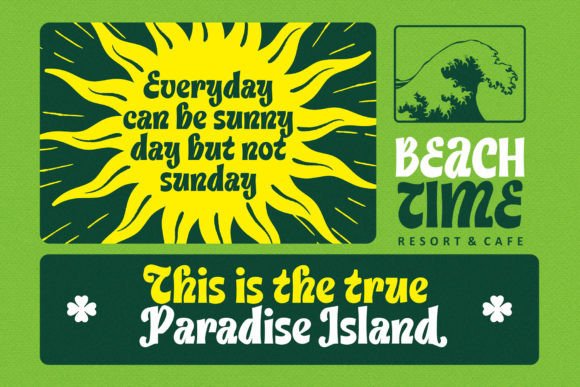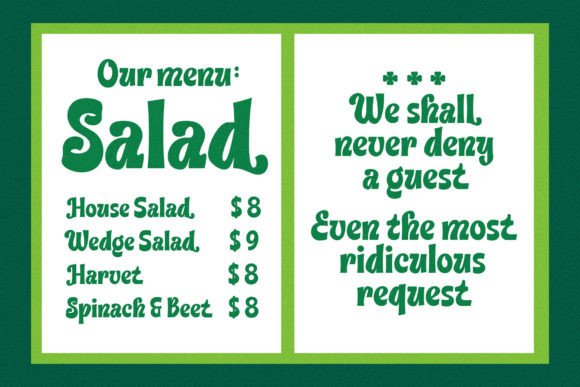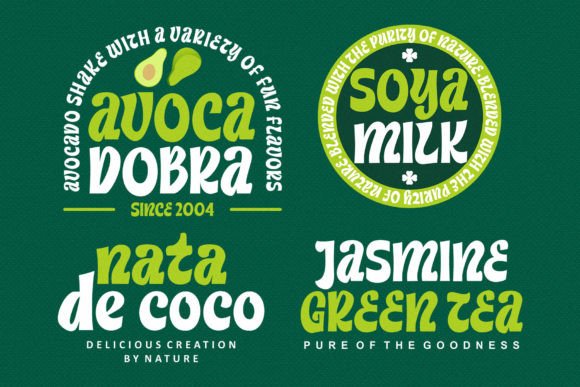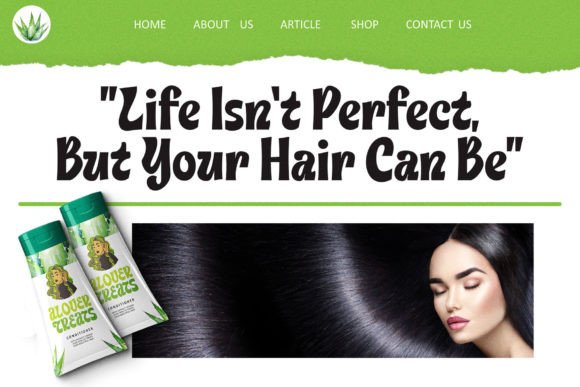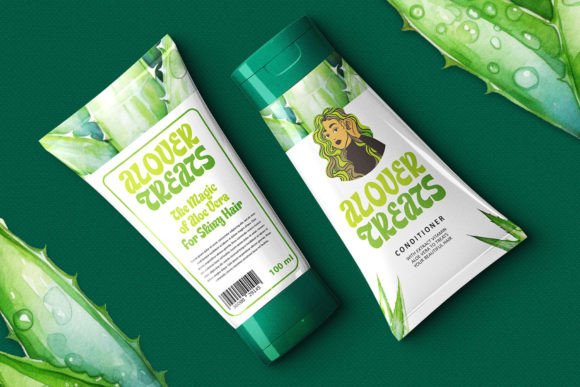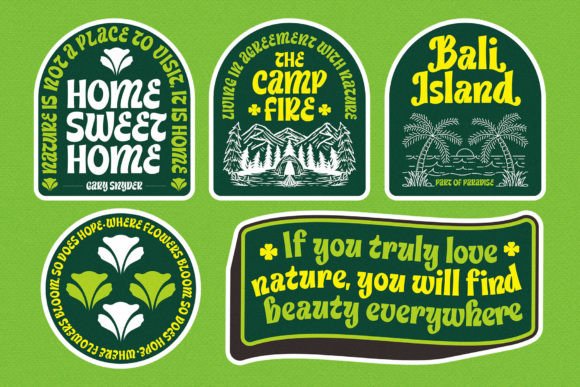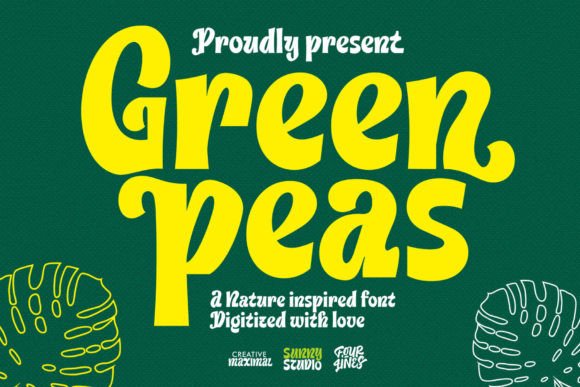
Discover the Charm of Green Peas Font: Elevate Your Designs with Nature-Inspired Elegance
In the world of typography, few fonts manage to capture the essence of nature’s beauty while maintaining legibility and readability. Green Peas Font is one such gem that has been crafted with meticulous attention to detail, offering a harmonious balance between the aesthetic appeal of the natural world and the demands of effective communication. This versatile font is designed to bring a touch of whimsy and elegance to a wide range of projects, making it an ideal choice for designers and crafters looking to infuse their work with a fresh, organic feel.
The Beauty of Green Peas Font
Green Peas Font stands out for its unique blend of beauty, elegance, and playfulness. Each letterform is carefully designed to evoke the simplicity and charm of nature, reminiscent of the tender shoots of green peas. The font’s design ensures that it is not only visually appealing but also highly legible, making it suitable for use in both digital and print mediums. Whether you’re working on a website header, a poster, a social media graphic, or a personal journal, Green Peas Font can add a distinctive touch that sets your work apart.
One of the key advantages of Green Peas Font is its versatility. This font can be seamlessly incorporated into various projects, including:
- Website Headers: Create a lasting first impression with a unique and captivating font that reflects your brand’s personality.
- Quotes and Inspirational Messages: Add a touch of elegance and positivity to your motivational content.
- Posters and Stickers: Stand out with eye-catching designs that combine fun and sophistication.
- Social Media Graphics: Elevate your social media presence with visually appealing graphics that engage and inspire.
- Personal Journals: Bring a personal touch to your journals and planners with a font that feels both whimsical and refined.
- Book Covers: Attract readers with a book cover that features a beautiful, nature-inspired font.
This versatility makes Green Peas Font a valuable addition to any designer’s toolkit, offering endless possibilities for creative expression.
Why Choose Green Peas Font?
Choosing Green Peas Font for your projects comes with several benefits:
- Unique Aesthetic: Offers a fresh alternative to more traditional fonts, allowing your work to stand out.
- High Legibility: Ensures that your message is communicated clearly, whether in digital or print formats.
- Emotional Connection: Creates a positive emotional response in readers, thanks to its association with nature.
- Adaptability: Suitable for a wide range of applications, from casual to formal projects.
Green Peas Font is more than just a typeface; it’s a design element that can transform your projects with its unique blend of natural elegance and playful charm. Whether you’re a professional designer or a crafting enthusiast, this font offers a simple yet effective way to add depth, personality, and appeal to your work. With Green Peas Font, you can create visually striking designs that resonate with your audience and leave a lasting impression.